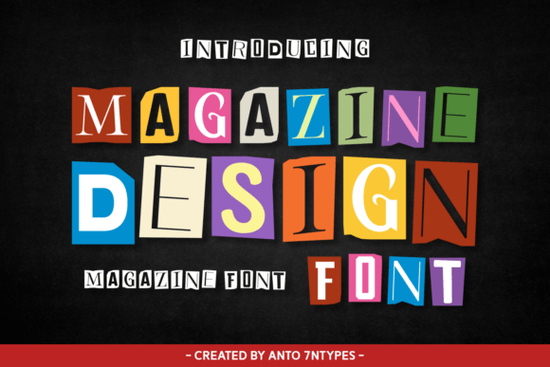
If you love the look of old newspaper cutouts, ransom note collages, and retro hand-lettering, the Magazine Design Font is worth a close look. This display font draws directly from vintage magazine typography bold, mismatched, and full of personality. It works beautifully for book covers, branding, social media graphics, and print-on-demand products.
What Does the Magazine Design Font Look Like?
Picture a ransom letter from a classic movie, but make it stylish. Each character in Magazine Design has its own weight, texture, and rhythm much like letters cut from different magazine pages and glued together. The result is a cheerful, handcrafted feel that instantly brings warmth and nostalgia to any layout.
Unlike clean sans-serifs or elegant serifs, this font thrives on controlled chaos. The letters don't match perfectly, and that's the whole point. It's playful yet still readable, which is a rare combination in bold, chunky typefaces.
Where Can You Actually Use This Font?
This is a display font, meaning it works best at larger sizes think headlines, titles, logos, and short phrases rather than body text. Here are some practical uses:
- Book and magazine covers especially memoirs, cookbooks, humor titles, and lifestyle publications
- T-shirt designs the vintage collage look translates really well to apparel
- Instagram posts and stories bold typography grabs attention in crowded feeds
- Product packaging adds character to labels, boxes, and wrapping
- Posters and flyers great for event promotions with a retro vibe
- Blog headers and website banners sets a distinctive visual tone
- Quotes and printables motivational or funny sayings look extra charming in this style
- Greeting cards pairs nicely with cheerful display fonts for card-making projects
What Projects Pair Well With Magazine Design?
If you sell on Etsy, Redbubble, or your own shop, this font opens up a lot of product ideas. Think vintage-style quote prints, retro brand logos, or playful packaging for handmade goods. Small businesses with a quirky or nostalgic brand identity will find it especially useful.
It also sits well alongside other Creative Fabrica display fonts. For example, if you're building a collection of playful display fonts for school-themed projects, Magazine Design adds a nice editorial contrast. And if you're working on designs that need a nostalgic or memory-themed aesthetic, this font fits right in.
Is It Only for Vintage or Retro Projects?
Not at all. While the retro newspaper collage vibe is its strongest quality, Magazine Design is surprisingly versatile. It can feel modern and edgy when paired with minimal layouts and monochrome color schemes. Drop it onto a clean white background with simple line art, and suddenly it reads as contemporary rather than old-fashioned.
Designers who work across styles often keep a few standout display options in their toolkit. This one earns its spot because the character shapes are distinctive without being hard to read.
How Does It Compare to Other Display Fonts?
Compared to something like a stacked chunky display font, Magazine Design feels more organic and textured. It doesn't rely on sheer size or geometric shapes for impact. Instead, its charm comes from the variety in each letter some look stamped, some look hand-cut, and together they create a collage effect.
If you want something cleaner, there are plenty of options. But if you need a font that feels handmade and carries real visual texture, this one delivers.
- Test it at your target size. Display fonts can look very different at 24pt versus 72pt.
- Preview it with your actual text. Some letter combinations work better than others in collage-style fonts.
- Pair it wisely. Use a simple sans-serif for body text so Magazine Design stays the star of your layout.
- Consider your audience. Vintage and retro aesthetics resonate strongly with certain niches lifestyle, food, humor, and self-help content especially.
If you're looking for a display font that brings genuine personality and a handcrafted retro feel to your designs, Magazine Design is a solid pick. It won't blend into the background and that's exactly the point.